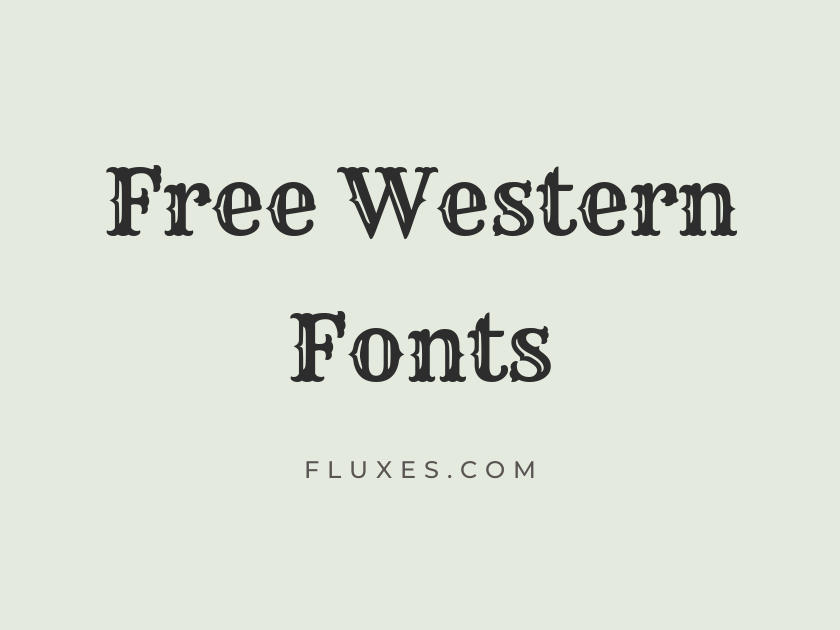
53 Best Free Western Fonts
The Old West left behind more than cattle trails and ghost towns; it left a whole visual language of splintery wood-type wanted posters, hand-painted saloon signs, telegraph dispatches, and newspapers set in heavy blackletter. Anyone designing a rodeo flyer, a barbecue joint’s menu, a whiskey label, or a rustic wedding invitation needs that same frontier grit, and Google Fonts happens to carry a deep well of free western fonts that cost nothing to download and license for personal or commercial work.
What follows ranges from bold wood-type display faces built for wanted posters, to blackletter mastheads fit for a frontier gazette, to hand-lettered scripts that look branded onto a saloon door. Some are loud enough to headline a rodeo poster on their own; others are calmer workhorses meant to sit quietly in a paragraph of frontier prose.
1. Rye
Wanted: Dead or Alive, Reward Offered
Rye is about as close as Google Fonts gets to a mascot for this whole genre. Its ornamented slab serifs, thick outer strokes, and decorative inner details were clearly modeled on nineteenth-century wood type, the kind carved by hand for a single print run and never quite matching the letter next to it.
Use it big, on posters and badges and beer labels; at body-copy sizes the ornamentation turns to mush.
2. Sancreek
Saloon Doors Swing Open at Sundown
Sancreek leans into rope-like, weathered strokes that look like they were burned into a plank rather than typeset. It reads instantly as Wild West without needing any supporting imagery, which makes it a strong single-word logotype for a ranch, brewery, or steakhouse.
3. Smokum
Campfire Tales Under a Prairie Sky
Smokum’s letterforms curl and drift like smoke off a campfire, an obvious but effective bit of theming. It works best in short bursts, a headline or a single sentence, since the loose, sketchy edges get chaotic in long stretches of text.
4. Ranchers
Rodeo Champions Ride Into Town Tonight
Ranchers is the newer, cleaner cousin in this family: bold, condensed, slightly rough at the edges, and easy to read even at moderate sizes. It suits rodeo posters and craft beer labels that want a rugged feel without tipping into full novelty-font territory.
5. Vast Shadow
Gold Rush Fever Strikes the Frontier
A confident slab serif with a built-in drop shadow, Vast Shadow feels lifted straight from a gold-rush-era circular. The shadow gives it dimension on a poster without needing extra layers of design work.
6. Bevan
Sheriff's Office, Dusty Streets, Old Faithful
Bevan takes its cues from Victorian wood type, with thick, slightly rounded slab serifs that feel carved rather than drawn. It has real presence at large sizes and holds up surprisingly well in short headlines too.
Pair it with a plain serif or sans body text so it stays the star of the page.
7. Alfa Slab One
Reward for the Notorious Outlaw Gang
This is a heavyweight slab serif built almost entirely of thick, blocky strokes, exactly the kind of face a wanted poster or saloon menu wants for its top line. It carries authority without needing decoration.
Because it is so dense, keep it to short phrases; a full sentence set this bold turns into a wall of black ink.
8. Ultra
Big Sky Country, Bold and Untamed
Ultra is an old warhorse of a slab serif, extremely heavy in the vertical strokes and comparatively thin in the horizontals, a contrast that gives it a vintage circus-poster energy well suited to frontier branding.
9. Modern Antiqua
Traveling Medicine Show Arrives This Weekend
Modern Antiqua channels the swaggering, high-contrast lettering of nineteenth-century traveling shows and patent medicine advertisements, the same visual world that overlapped with frontier towns. It makes an excellent headline face for anything that wants a theatrical, tent-revival flavor.
10. Frijole
Cactus, Spurs, and Sunbaked Trails
Frijole is chunky, hand-inked, and a little uneven, like a sign painted quickly in the desert heat. It has a folk-art warmth that works nicely for taco stands, cantinas, and southwestern branding as much as classic cowboy themes.
11. Bigshot One
Step Right Up for the Wild West Show
There is a carnival barker’s energy to Bigshot One, tall and narrow with a slight italic lean, evoking the traveling circuses and wild west shows that toured frontier towns. It is a strong choice for event posters that want drama over subtlety.
12. Fascinate
Fortune Tellers and Frontier Curiosities
Fascinate is an ornate art nouveau display face, more medicine-show curiosity cabinet than cattle drive, but its swirling details fit the sideshow and saloon-marquee side of western Americana surprisingly well.
13. Fascinate Inline
Sideshow Attractions at the County Fair
The inline version of Fascinate keeps all that ornate curvature but adds a hollow center, which lends itself to color fills and layered poster designs. Use it sparingly; it is a decoration, not a workhorse.
Between the wood-type wanted posters, the blackletter newspaper mastheads, and the hand-lettered saloon scripts, there is enough range here to outfit an entire western brand identity without spending a cent. Download a handful, test them at real project sizes, and let the rougher, louder faces do the talking while a steadier serif or slab handles the rest.